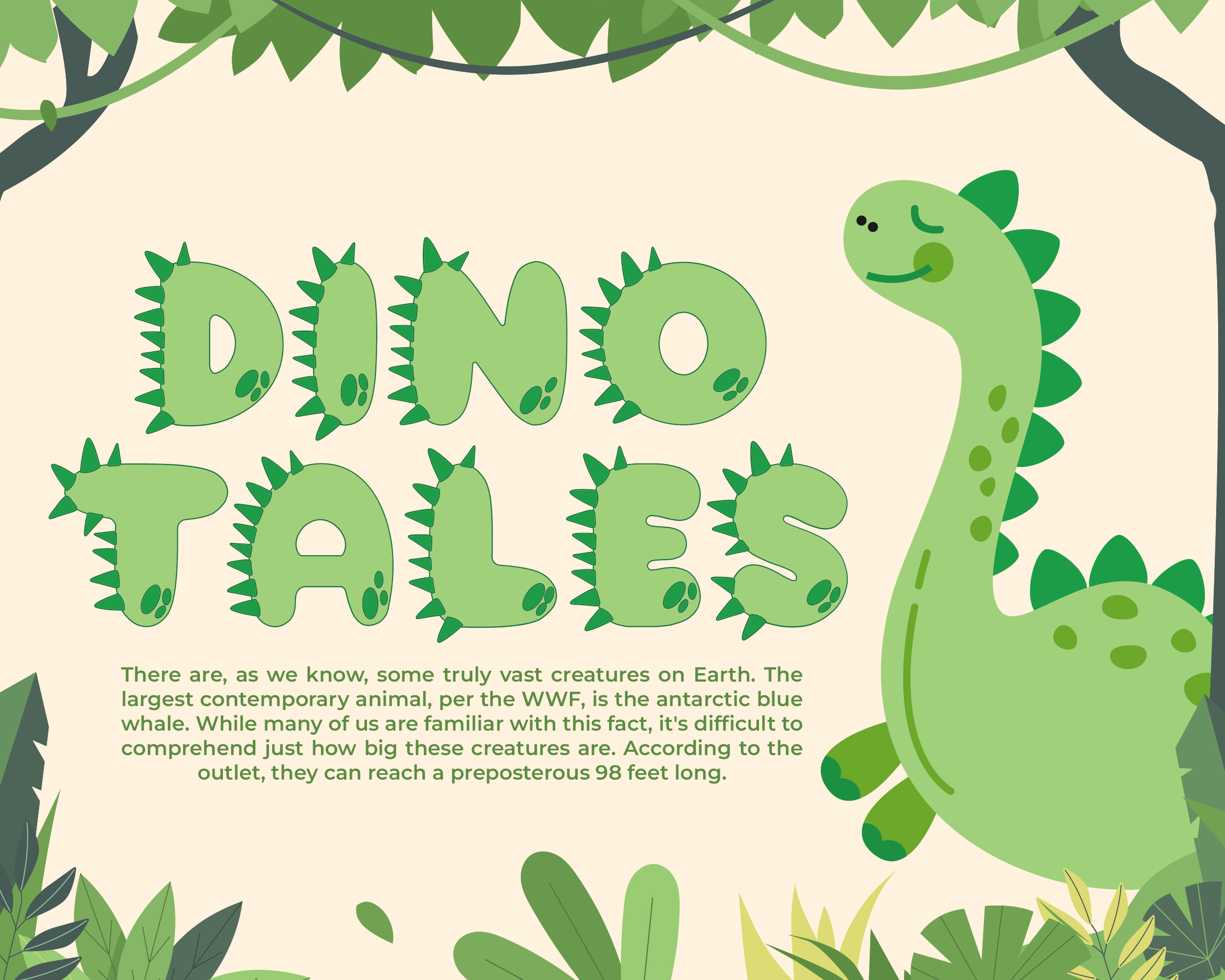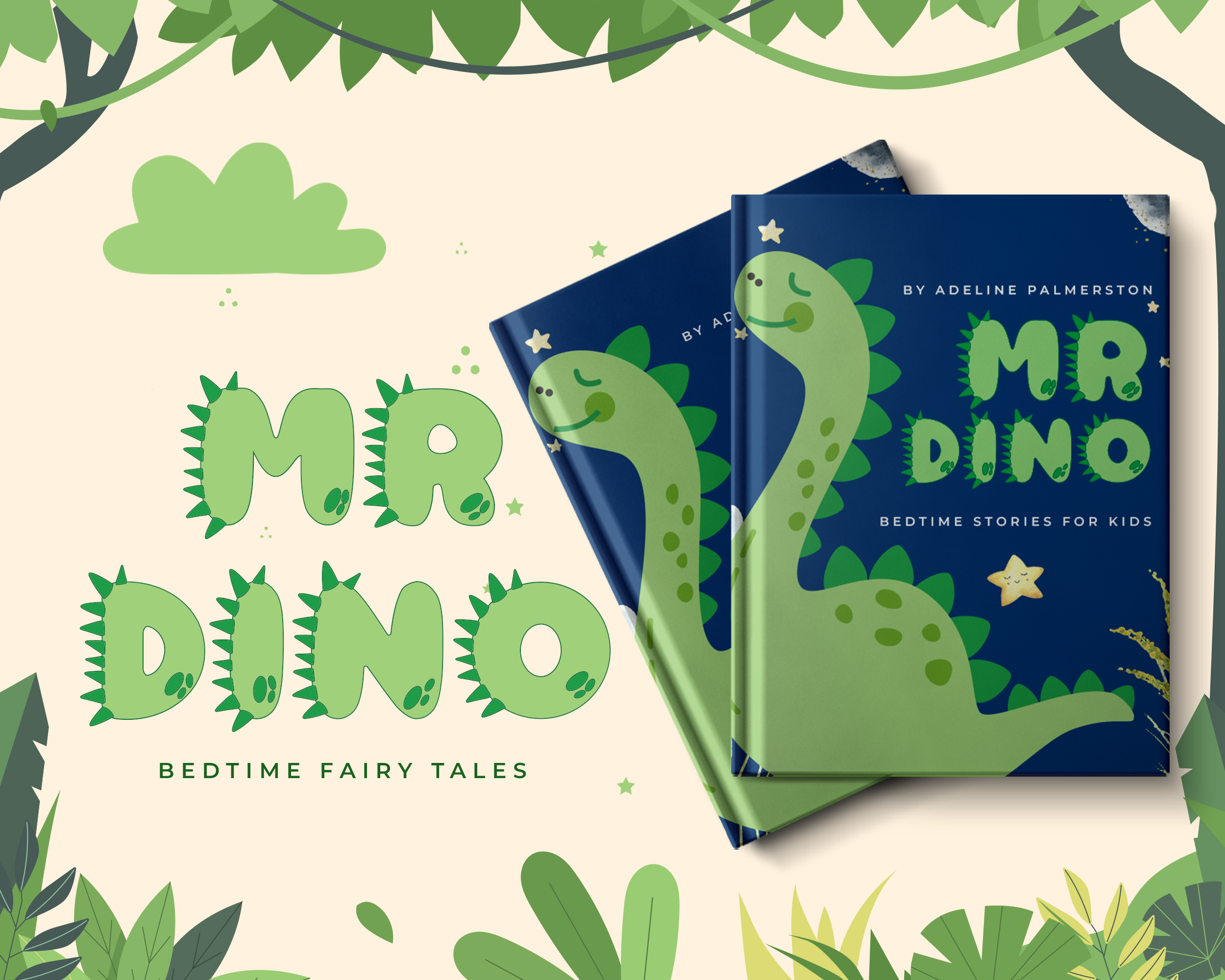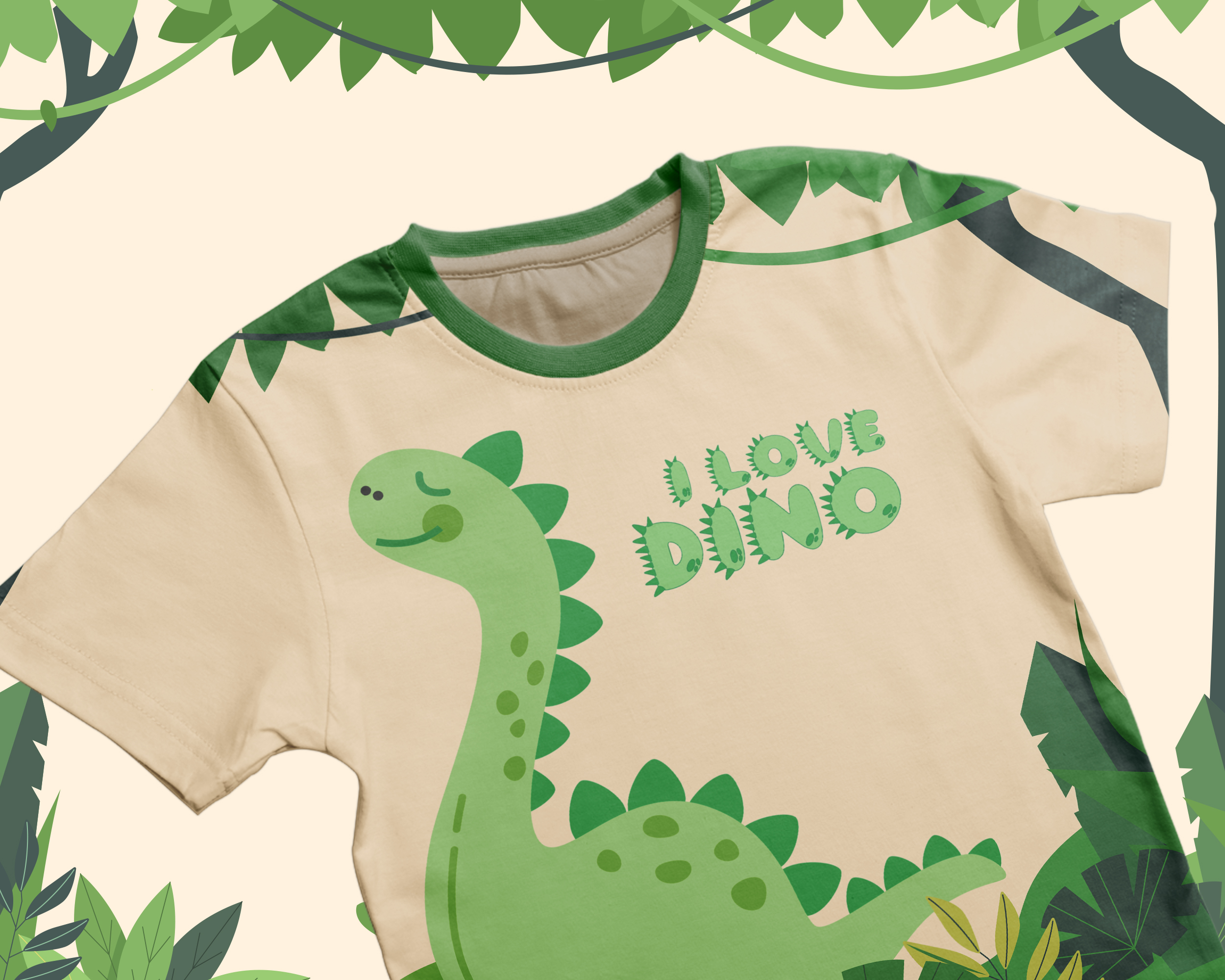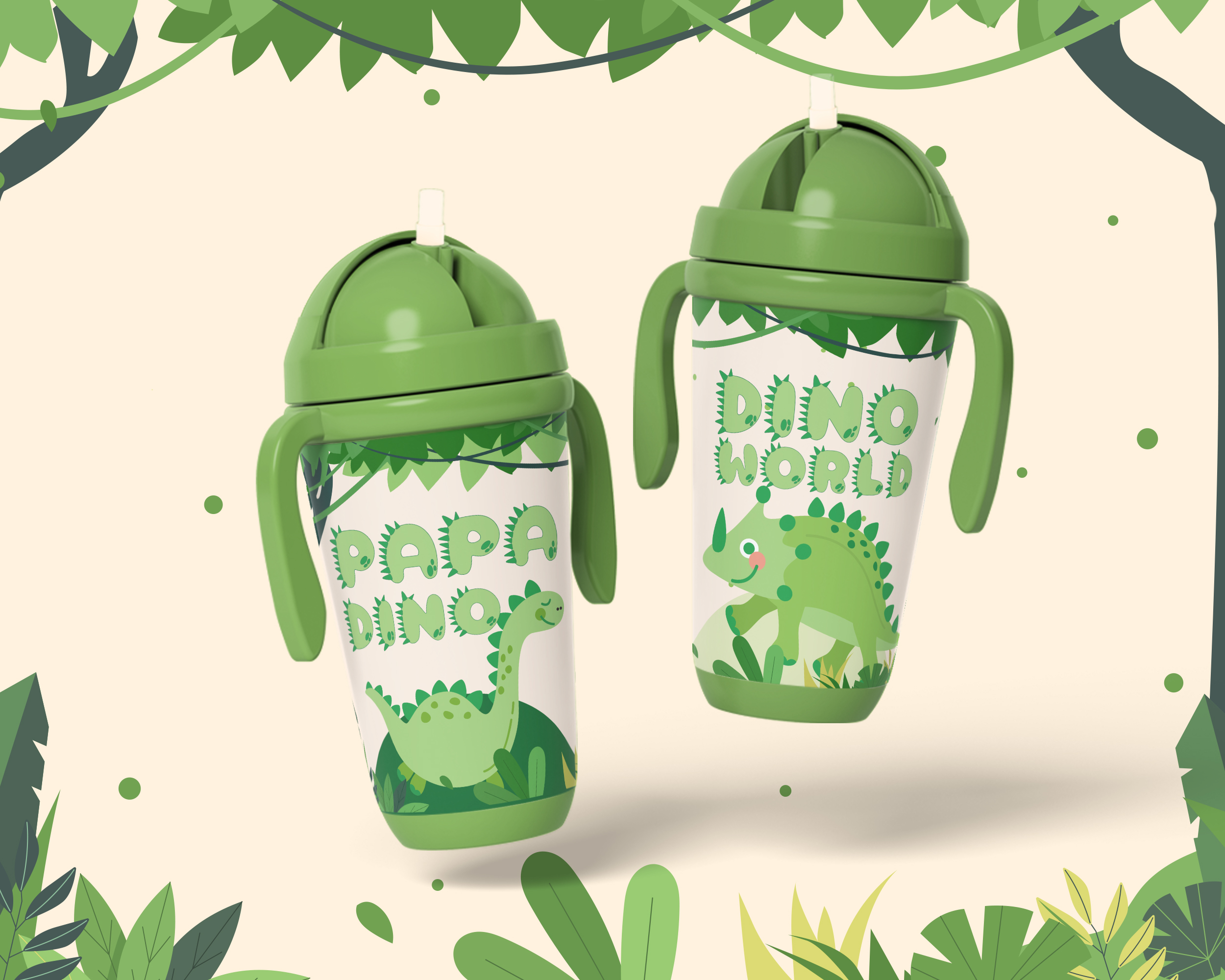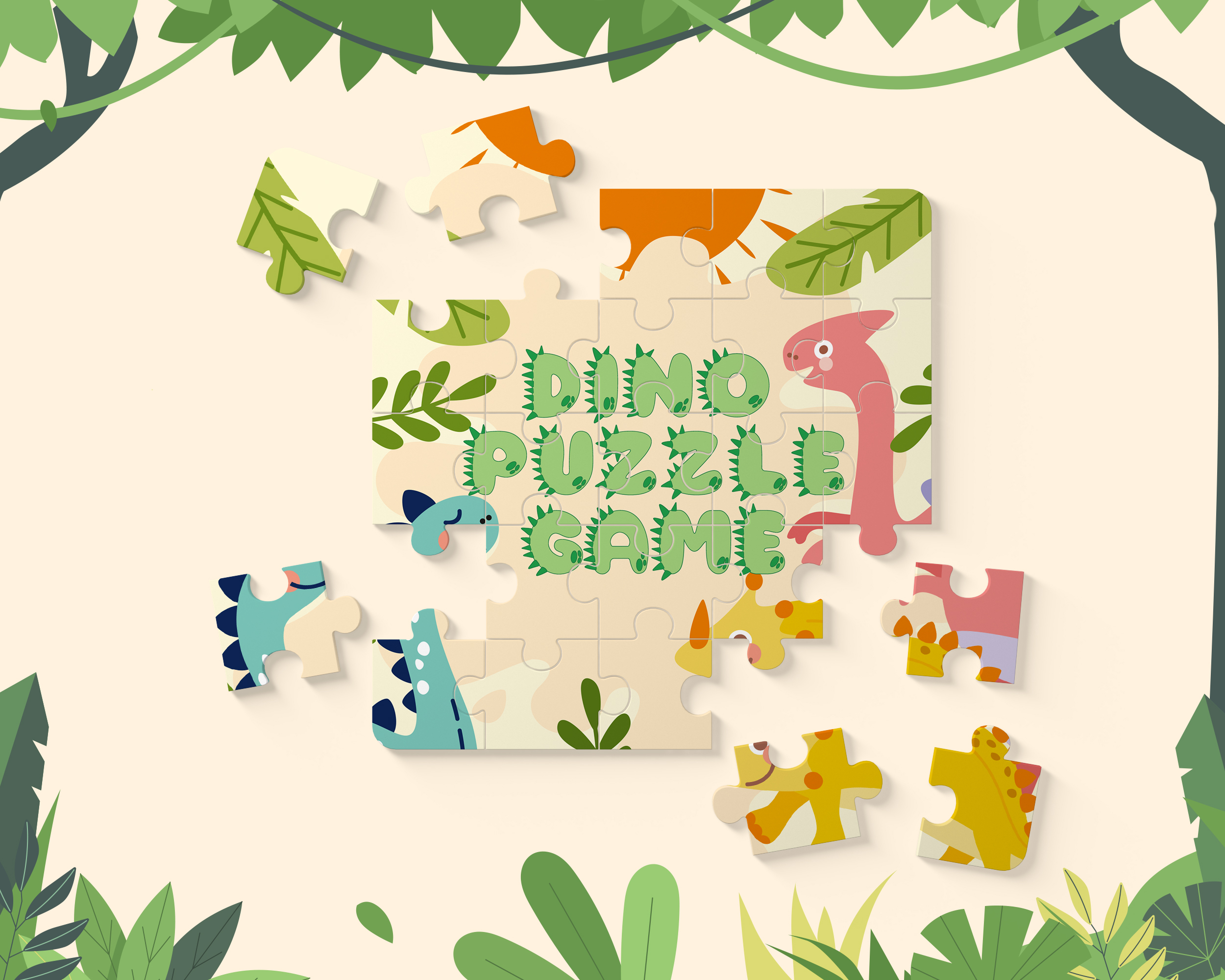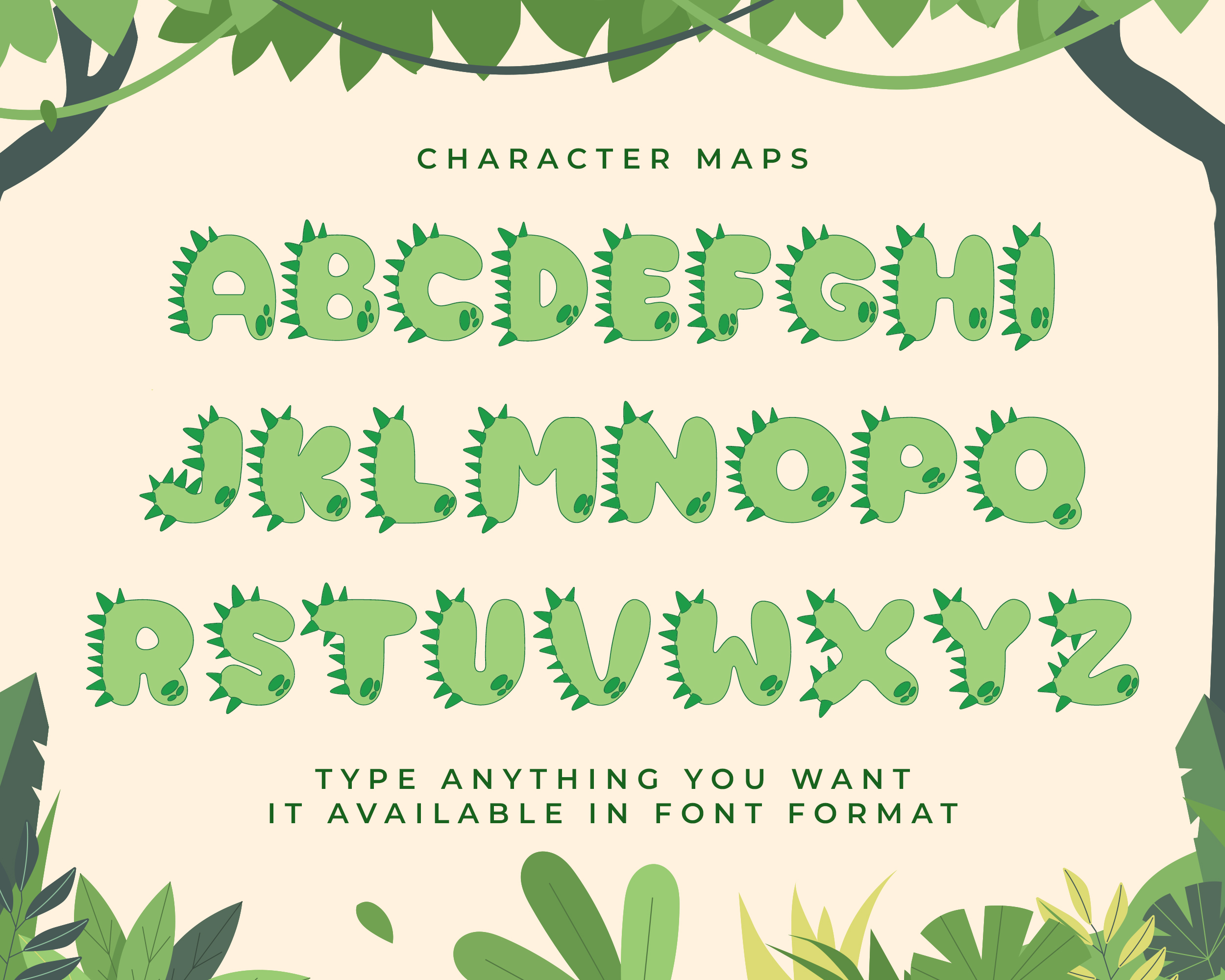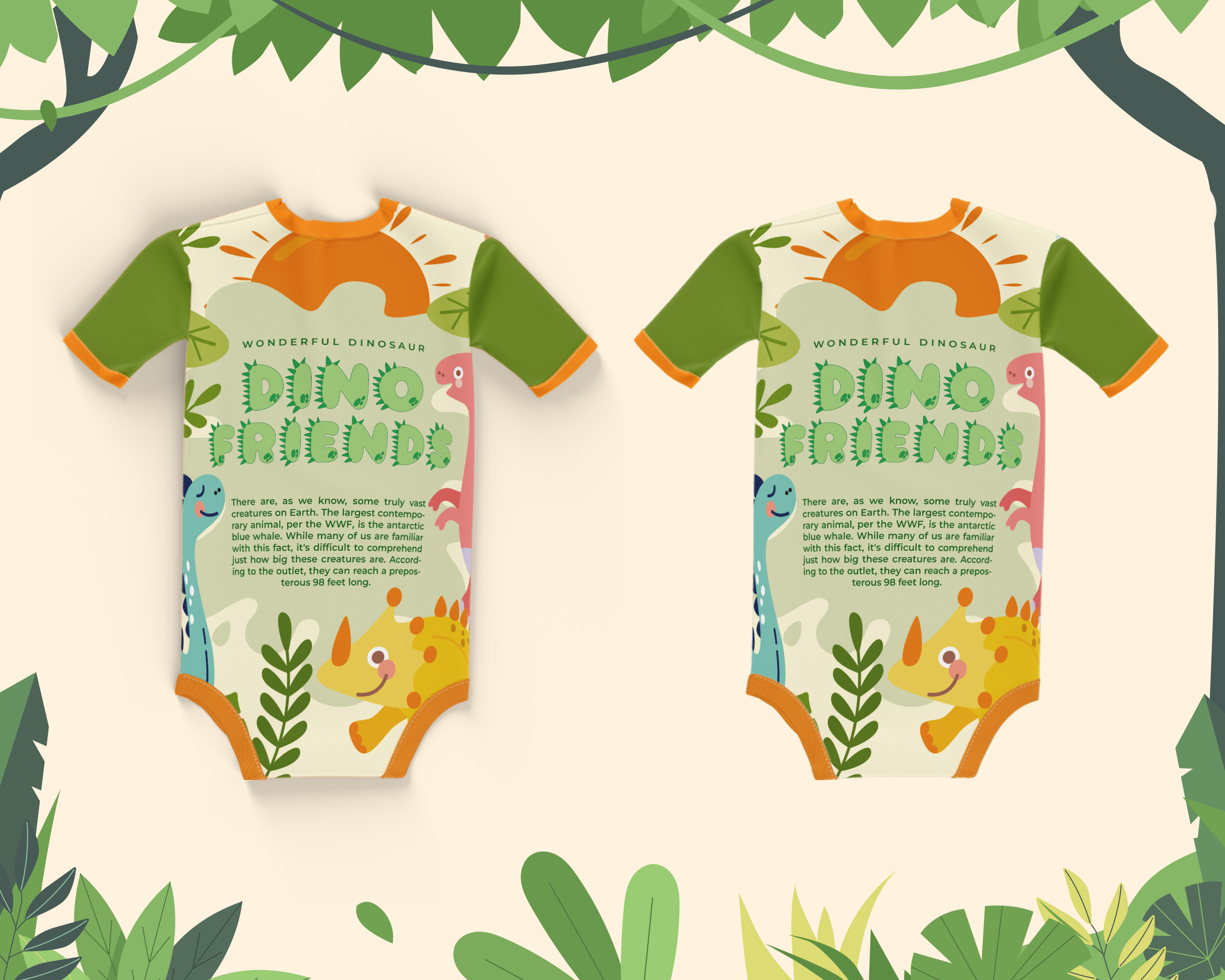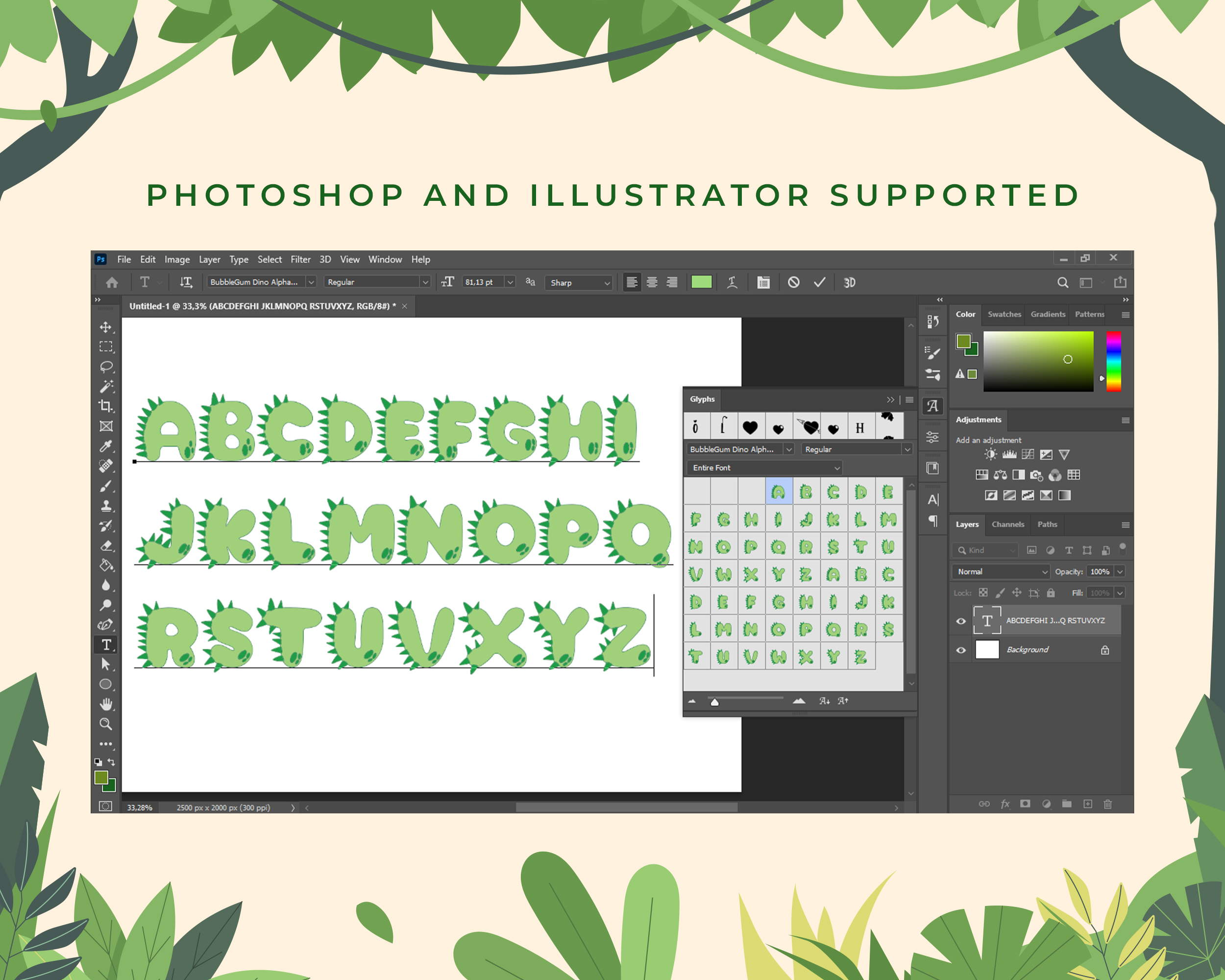
Decorative Bubble Gum Dino Alphabet Font is a uniquely combined typeface concept. Created with a dinosaur theme, this font is perfect for all kinds of kid activities. Unique, interesting, and funny letter shapes will leave an unforgettable impression on the childrens minds. You can use this Decorative Bubble Gum Dino Alphabet Font for all printing needs, such as school supplies, bags, pencil cases, story books, textbooks, and decorations on school walls. When placed over a variety of items, this font is fun and eye-catching typographic design will grab a child's attention instantly. For this reason, we recommend using this typeface in any product intended for children. Cute Decorative Bubble Gum Dino Alphabet Font can also be used effectively in the digital world. This font is also suitable for individuals and companies who want to create games for children, or those who want to produce a movie or video streaming service for young audiences. Our collection of Decorative fonts and compatible for use as Figma fonts, Canva fonts, Freepik Fonts, and Adobe Fonts. They also work as Windows Fonts and Apple Fonts. For your social media needs, you can use and install fonts in our collection of display and decorative typography to use as Instagram Fonts, Facebook Fonts, and Twitter Fonts.